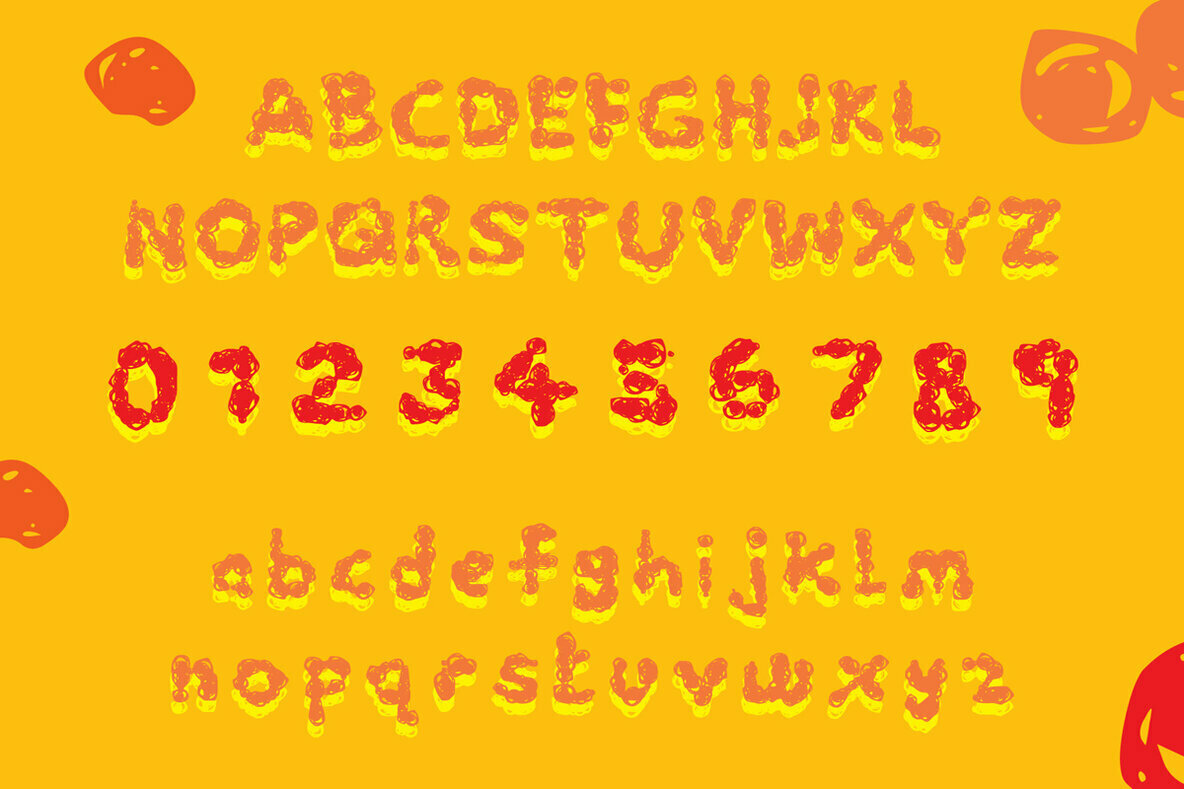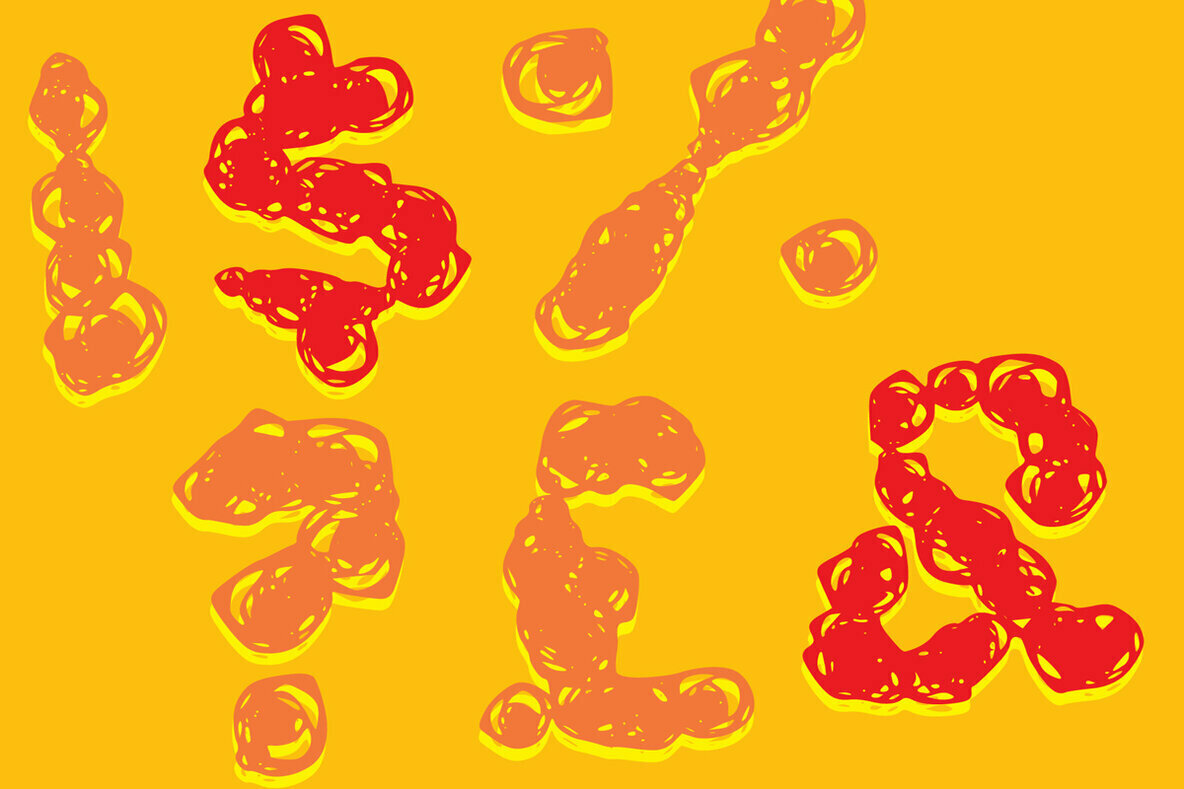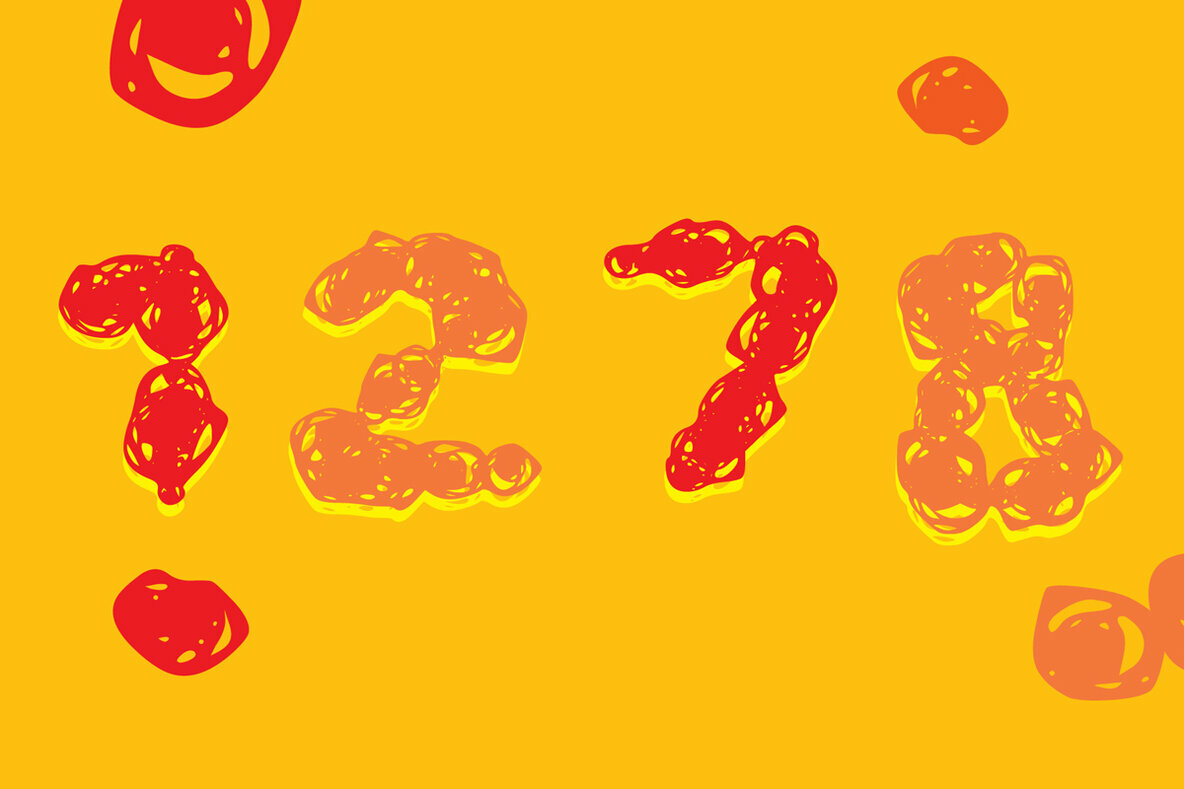
Rounded Scribble Font
Rounded Scribble
Rounded Scribble embodies fun, quirkiness and authenticity. Get creative with its unique playfulness, and use it to brighten up all your upcoming crafting projects!